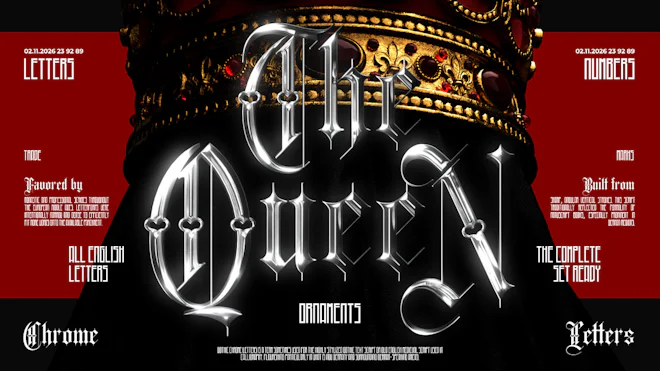
This stock motion graphics video pack includes 83 different clips of chrome gothic letters, numbers, symbols and elements on a transparent alpha channel. Resolution is 720x720.